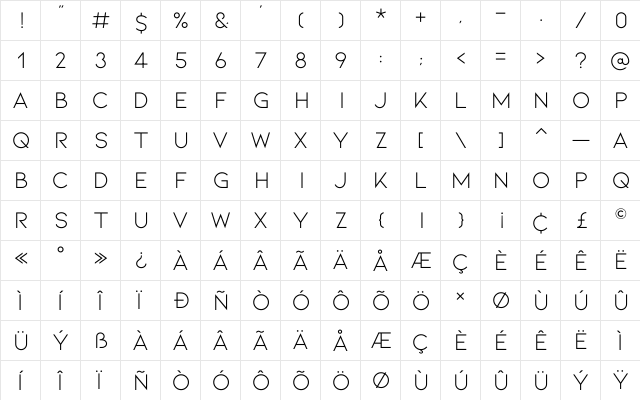
Kiona Regular
| Designer | Ellen Luff |
Design Context for Kiona Typeface
Kiona offers clean, dependable letterforms without strong stylistic allegiance, making it a practical choice for designers who need flexibility.